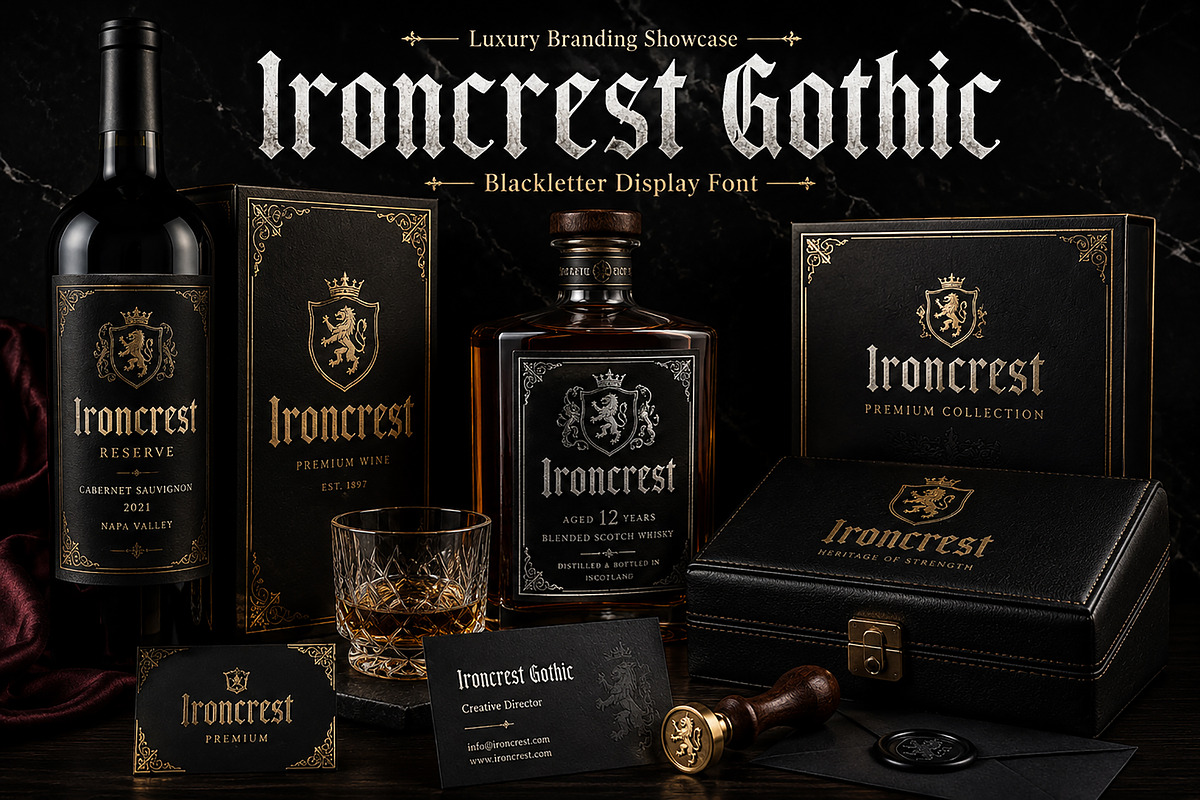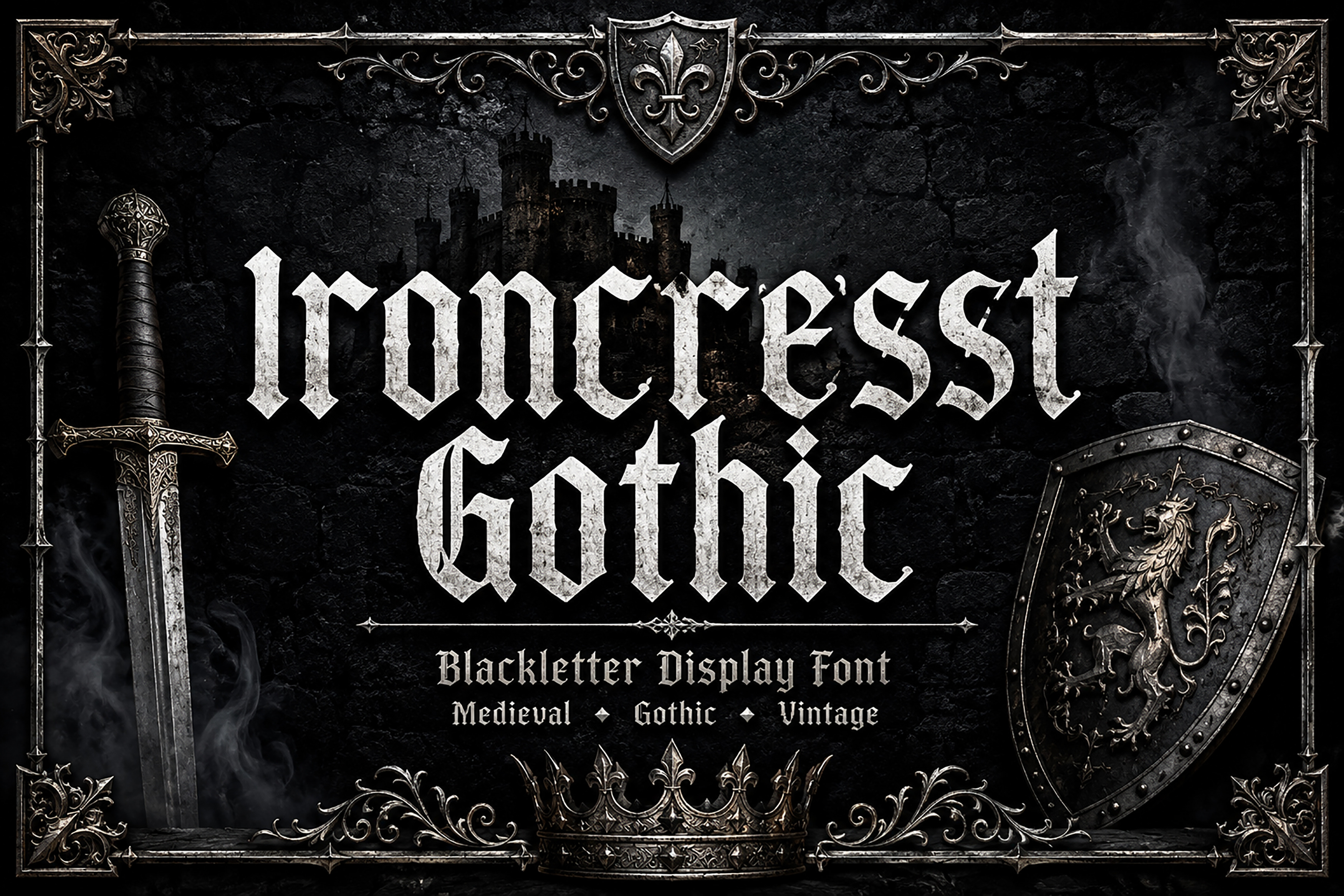
Ironcrest Gothic – Blackletter Font
Ironcrest Gothic – Medieval Blackletter Display Font
Ironcrest Gothic is a bold and commanding blackletter display font inspired by medieval manuscripts, Gothic architecture, ancient kingdoms, and timeless craftsmanship. Designed with sharp edges, dramatic strokes, and authentic Gothic character, this typeface brings a powerful historical atmosphere to every project.
Whether you're creating luxury branding, medieval posters, fantasy book covers, whiskey labels, game titles, tattoo designs, or vintage-inspired packaging, Ironcrest Gothic delivers a striking visual impact with classic elegance.
Its distinctive letterforms combine traditional blackletter aesthetics with modern usability, making it perfect for designers who want to create memorable and premium-quality typography.
Medieval Posters
Fantasy Book Covers
Gothic Branding
Luxury Logos
Whiskey & Wine Labels
Craft Beer Packaging
Tattoo Designs
Album Covers
Metal Band Artwork
Gaming Titles
YouTube Thumbnails
Clothing & Merchandise
Premium Packaging
Restaurant & Pub Branding
Event Posters
Historical Projects
Vintage Editorial Design
Certificate & Emblem Design
Bring timeless medieval elegance and bold Gothic character to your next creative project with Ironcrest Gothic.